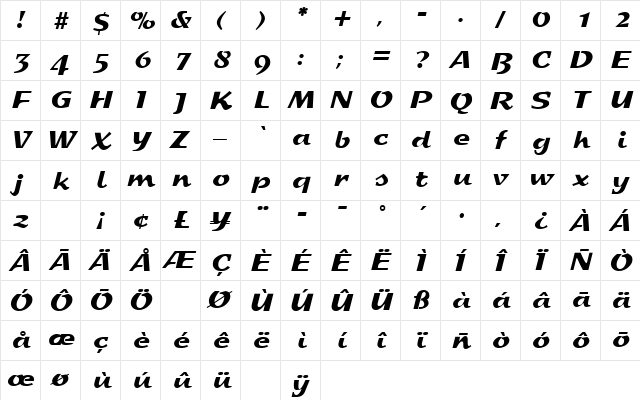
Sprint SF Regular
Design Context for Sprint SF Typeface
Sprint SF offers clean, dependable letterforms without strong stylistic allegiance, making it a practical choice for designers who need flexibility.